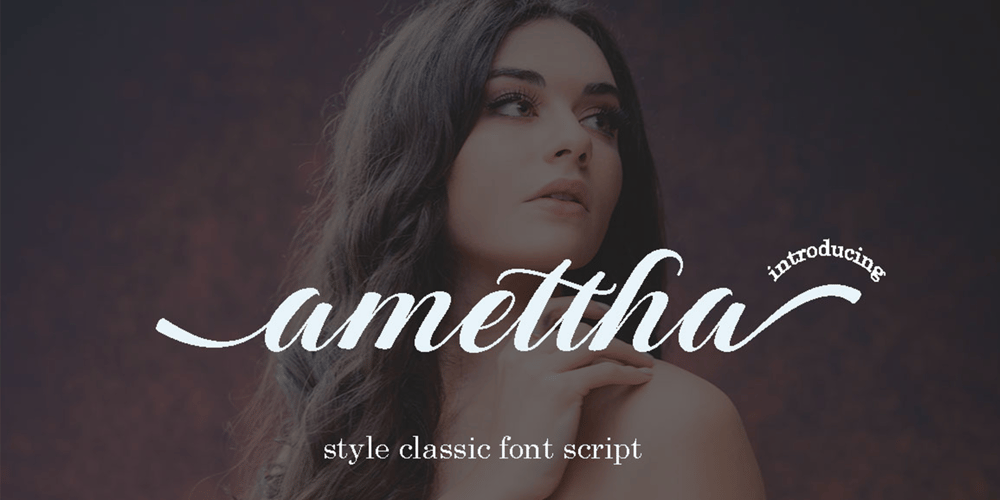
Amettha Script Font Family was designed by Rossy Fitrika Jamil and published by Occy Design. Amettha Script contains 1 styles and family package options. Amettha Fonts comes with a combination of modern and elegant fonts. While maintaining a feminine and elegant which is a perfect combination to your various design needs.This handcrafted style makes it perfect for logos & branding, invitations, stationery, wedding designs, social media, advertisements, printed quotes, product packaging, labels, photography, watermarks, special events, or even magazine layouts.FILE INCLUDE Amettha Font Uppercase Lowercase Number & Simbol Multilingual Amettha Fonts supports the following languages; English, French, Italian, Spanish, Portuguese, German, Swedish, Norwegian, Danish, Dutch, Finnish, Indonesian, Malay, Hungarian, Polish, Croatian, Turkish, Romanian, Czech, Latvian, Lithuanian, Slovak, Slovenian.